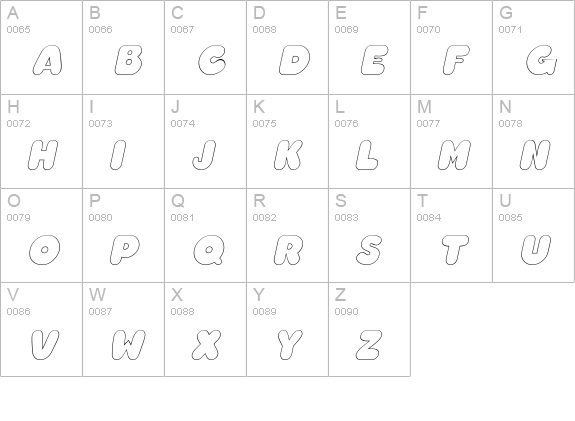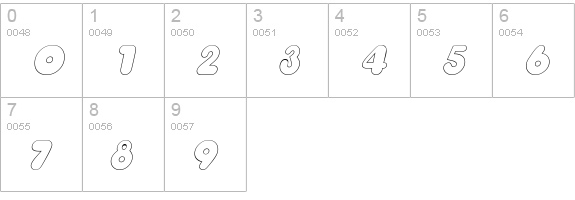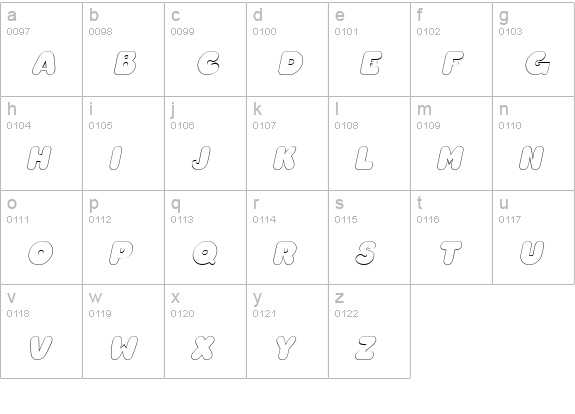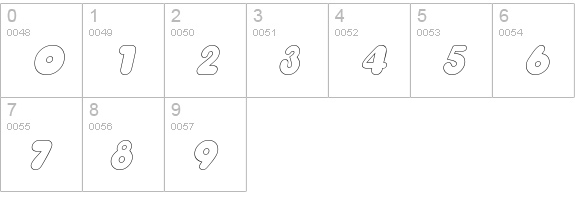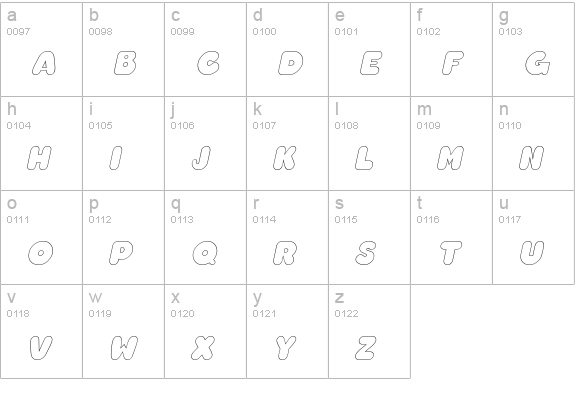
ChubbyOutline Italic is a distinctive, italic variant in the ChubbyOutline typeface family \xE2\x80\x94 well suited to design and typography projects.
ChubbyOutline Italic font is a playful and charming typeface that adds a touch of whimsy to any design. Its bold outline and slanted italic style give it a unique and eye-catching appearance, making it perfect for headlines, logos, and other creative projects. The rounded edges and chubby curves of this font give it a friendly and approachable feel, making it ideal for projects that require a touch of personality. Best of all, ChubbyOutline Italic font is available for free download at FontsMarket.com. This means you can easily add this delightful font to your collection without breaking the bank. Whether you're working on a fun poster, a quirky website, or a cheerful branding project, ChubbyOutline Italic font is sure to bring a smile to your audience's faces. Download it today and let your creativity run wild with this charming and free typeface!